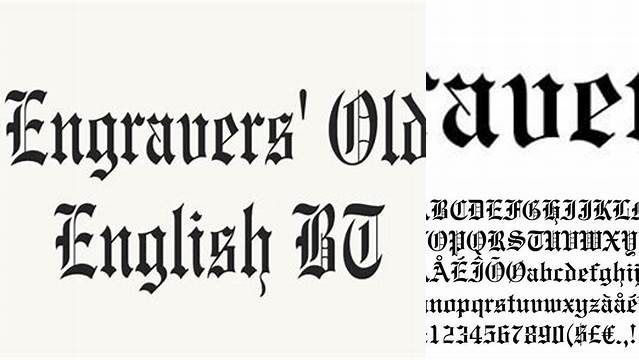
Hey everyone! Are you looking to add a touch of classic elegance and a vintage vibe to your projects? If so, you're in the right place! Today, we're diving into the wonderful world of engravers old english font free download. This style of font, with its ornate and calligraphic details, is absolutely perfect for anyone who wants to evoke a sense of history, sophistication, or even a bit of mystery. Whether you're a seasoned graphic designer, a budding crafter, or just someone who loves beautiful typography, finding the right Old English font can make all the difference. And the best part? We're going to explore where you can find these stunning fonts absolutely free! So, buckle up, because we're about to embark on a journey through the world of Old English fonts and discover how you can get your hands on them without spending a dime. Let's get started and find those perfect fonts to make your creations stand out! Remember, the right font can truly transform your work, giving it a unique character and personality that grabs attention and leaves a lasting impression. I think, you're going to love this.
The Characteristics of Engravers Old English Fonts
Now, let's talk about what actually makes these fonts so special. Engravers old english font free download fonts, also known as Blackletter fonts, are characterized by their elaborate and ornate letterforms. They're typically inspired by the hand-written scripts of the medieval period, and they often feature thick strokes, intricate serifs, and a distinctive, almost gothic, appearance. The key characteristics that define these fonts include the use of strong vertical strokes, which create a sense of formality and grandeur, and the presence of sharp angles and decorative flourishes. The overall aesthetic is one of elegance and history, making them ideal for projects that aim to convey tradition, prestige, or a touch of the mystical. Because of these attributes, they have been widely used in everything from book titles and diplomas to logos and invitations. Some fonts might have a very classic look, while others can have a more modern spin. It's really important to understand the nuances and the different styles within the broader category of the engravers old english font free download fonts. Consider how the font's specific details, like the size of the serifs or the thickness of the strokes, will affect the overall mood of your design. Will the font be used on the screen or in print? Keep in mind that some fonts may look beautiful on a computer screen but may not translate well when printed at smaller sizes or on certain materials. Experiment and find what works best for your specific project. Think of how the letters interact with each other; good fonts have an excellent flow. Consider what it would look like as a watermark or on stationery, cards, logos, and more.
Popular Engravers Old English Font Examples
Alright, let's get into some cool examples of popular engravers old english font free download. Knowing some examples can help inspire you and give you a better idea of what to look for. Some of the most popular and widely used Old English fonts include Blackletter, Engravers MT, and Cloister Black. Blackletter is a classic and versatile font with a bold, recognizable appearance, commonly used for headlines and titles that want to evoke a sense of history. Engravers MT offers a more refined and elegant style. It is often used for formal documents or branding. Cloister Black is another popular choice, with its detailed and decorative letterforms, perfect for adding a touch of sophistication to your work. There are also some cool variations of these fonts. For example, you may see a modern version of the font, or a more handwritten version. You might find different variations, such as a bold, a regular, or an italic version. When choosing a font, think about what works with your specific project. Is it simple and easy to read? Or is it a more decorative piece of art? A font that looks great in one context might not be perfect for another. Check out popular websites, such as DaFont and Font Squirrel, to check out samples and find what is best for your needs. Also, look at what others have done with these fonts to get some inspiration. If the font is very important, then you can purchase it to ensure the legality and the best experience. There are countless variations of these fonts, so explore them and discover what works best for your project!
Tips for Using Old English Fonts Effectively
Using engravers old english font free download effectively involves more than just choosing a font that looks good. It's also about how you implement it into your design. First of all, consider the context of your design. Where will the font be used, and who is your audience? Old English fonts are ideal for invitations, posters, or anything that needs a touch of nostalgia. Be careful, as these fonts can easily become overwhelming. Use it for headlines or titles, not large blocks of text. Be sure to pair it with a complementary font; a simple, clean sans-serif can create a balance. Always choose a font with good legibility. Ensure that the letters are easy to read, particularly when printed at a smaller size. This is super important, especially for websites. Use the font size appropriately; you don't want your headlines to be huge, so they take up too much space. Experiment with spacing and kerning. Adjust the space between letters and words so that it looks nice to the eye. Try out different sizes and weights to achieve the right balance. The font you choose should enhance your design. When used appropriately, an Old English font will add sophistication and visual interest. If you implement the font well, it will definitely make your project really pop. If you're new to this, there are lots of resources to get you started.
Exploring the History and Origins of Old English Fonts
Let's take a brief trip back in time and dive into the origins of engravers old english font free download. Old English fonts, sometimes called Blackletter fonts, have a rich history that can be traced back to the Middle Ages. These fonts evolved from the hand-written scripts of the time, especially those used by scribes in monasteries. The styles began in the 12th century, becoming increasingly ornate. During the invention of the printing press in the 15th century, they were among the first fonts used. The distinctive features of these fonts come from the use of a quill and pen. The calligraphic techniques created the bold, angular strokes that define this font. Blackletter fonts were popular for their ability to convey a sense of authority and tradition. They were used for everything from religious texts and legal documents to important announcements. With the rise of the printing press, these fonts became more accessible, and they spread rapidly across Europe. As time passed, different styles emerged. From the more elaborate Gothic styles to the more streamlined versions, the engravers old english font free download fonts evolved. This rich history can add depth and meaning to any project. Understanding the origins of a font can also help you select the best choice. It's an interesting look into the history of design.
Comparing Different Styles of Old English Fonts
Not all engravers old english font free download are created equal, guys! There's a wide variety of styles available, each with its own distinct characteristics and uses. When you start your search for a font, you'll come across terms such as Gothic, Fraktur, and Textura. These are just a few of the many different styles of Blackletter. Gothic fonts are known for their bold and elaborate appearance, which often incorporates a lot of flourishes. They're perfect for conveying a sense of grandeur and formality. Fraktur fonts are characterized by their broken letterforms and are often more delicate and stylized. Textura fonts, the most recognizable, feature a uniform and vertical appearance, making them ideal for formal documents. When choosing a font, think about the vibe you're trying to achieve. Fraktur is a good choice if you want a more delicate look. Gothic is a good option if you want boldness. The choice will depend on the project. Experiment and see what looks best, making sure the font style matches the overall design's theme. You might find one style suits a website and another would be better for printed materials. There are many variations available. Understanding the differences between each style will help you make the best decision. Always select the style that fits your project.
Using Old English Fonts in Modern Design: Tips and Tricks
So, how do you bring the engravers old english font free download into the modern era? Using Old English fonts in contemporary design is a great way to add character to your design. It's a tricky balancing act; you want to evoke a classic style, while keeping things fresh. Start by pairing the font with more modern elements. This can create a cool contrast. Pair your Old English font with a clean, simple sans-serif font for body text. This will make the information easier to read. When choosing colors, consider a palette that complements the font style. Dark and muted colors often go really well with the detailed letters. Use the font sparingly! Overuse can make a design look dated or overwhelming. Try using it for headlines or titles, and keep the body text clean. Experiment with size and weight to create visual interest, and adjust the spacing between the letters to enhance readability. Consider your target audience, as some styles may not be the best for certain audiences. Use the font to create logos, packaging, or posters. Think of how the font can add a unique touch to your design. Play around with these tips to incorporate the fonts and give your design a modern, unique twist. Combining the old with the new can create something wonderful.
The Impact of Font Choice on Brand Identity and Recognition
Let's look at how the engravers old english font free download impacts your brand. Fonts are a really important aspect of your brand. Your font choice can influence brand identity, and this can affect how customers perceive your brand. The right font will enhance your brand's message. The font is a visual element, and it can help communicate what your brand is all about. Also, the font can impact brand recognition. Make sure your font is memorable and that you use it consistently across all your brand materials. This will increase the brand recognition. With the right font, your brand will be more memorable, and it will stand out. Choose a font that aligns with your brand's overall design. Remember, your font choice will have a massive impact on your brand.